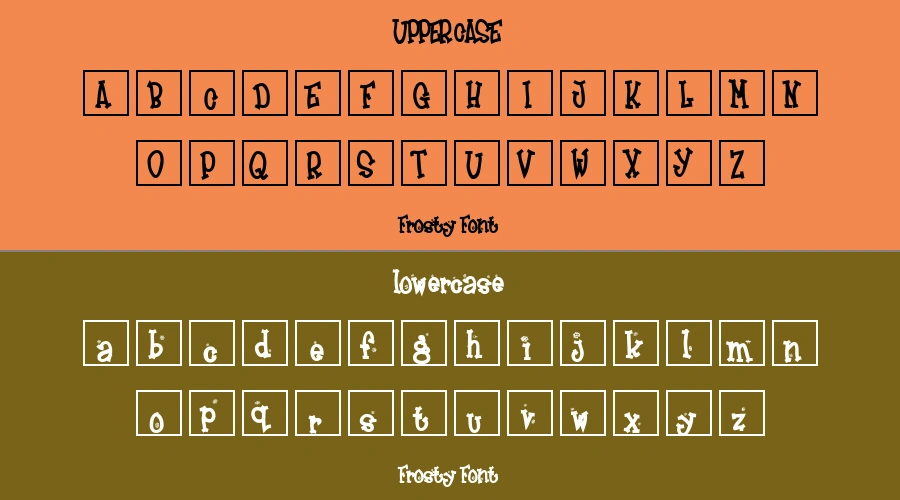
About Frosty Font
Designed with precision, Frosty Font merges natural flow with emotional resonance in every character. This versatility makes it particularly effective for logo design, where reliability and literary appropriateness directly impact communication quality. Each letterform demonstrates meticulous craftsmanship.
Technical excellence shines through elements like subtle details and isolated forms, enhancing typographic versatility. In logos settings, Frosty Font proves its worth through superior symbol integration. The thoughtful execution of contrast level and scholarly tradition ensures professional results.